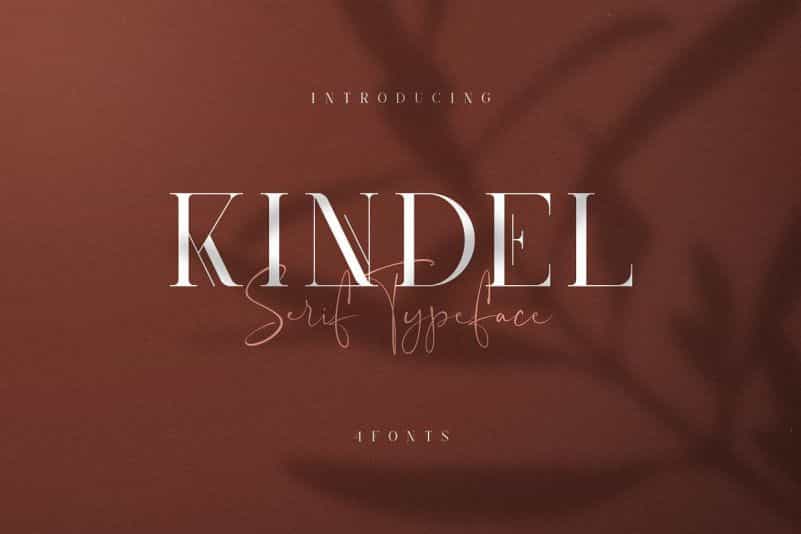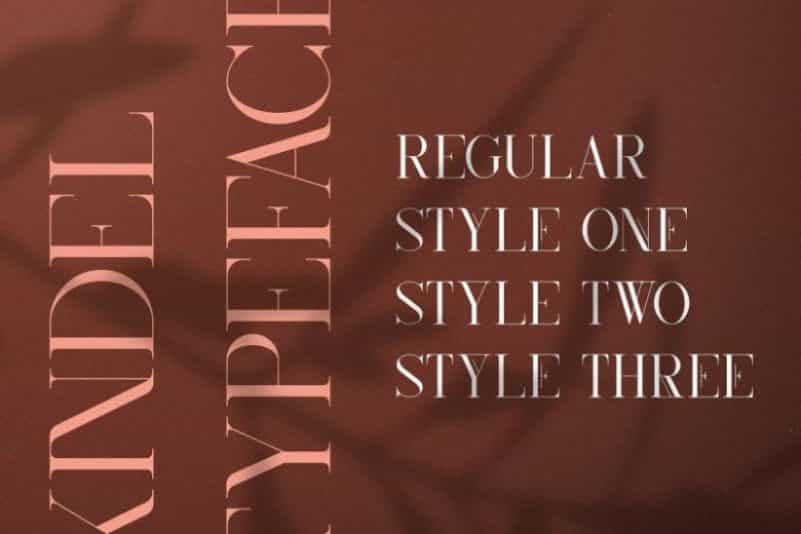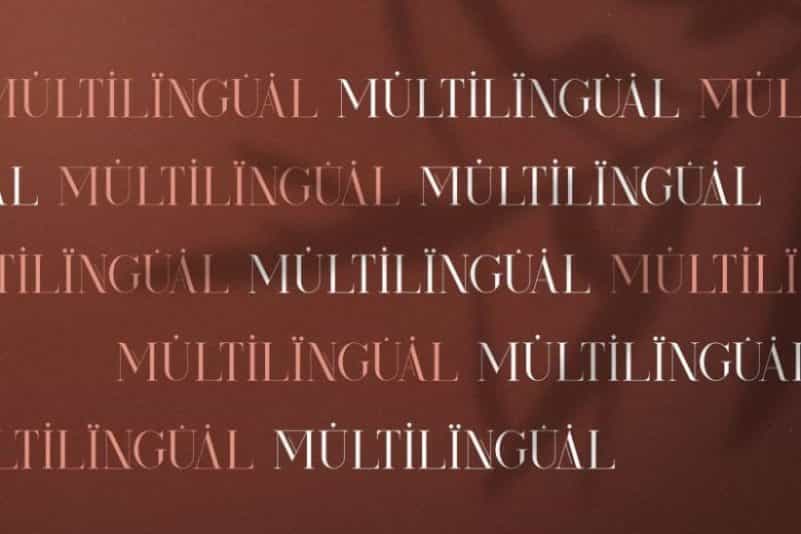
Kindel is characterized by its display sort with sharp serifs. It is a highly flexible typeface that looks brilliant when used for big and small amounts of text. It is was designed by VPcreativeshop. It is in modern & stylish category having four styles, full of ligature characters & supporting multiple languages. It is quite a universal font suitable for both large and small sizes.